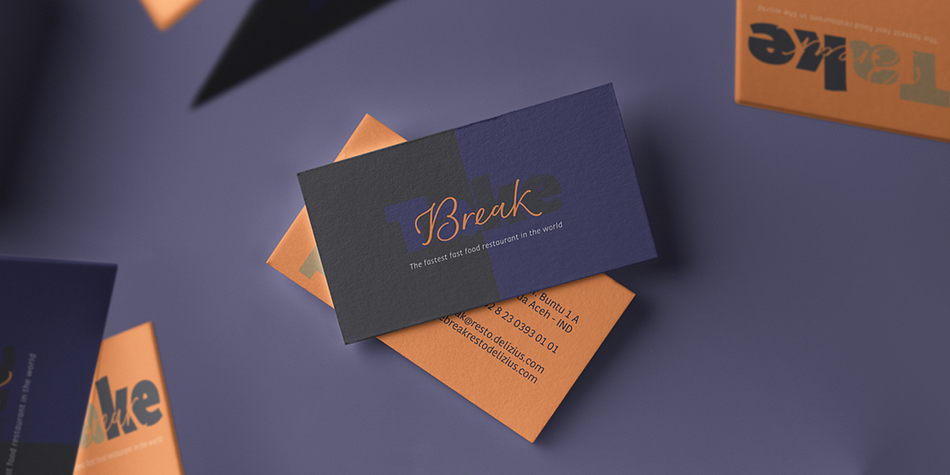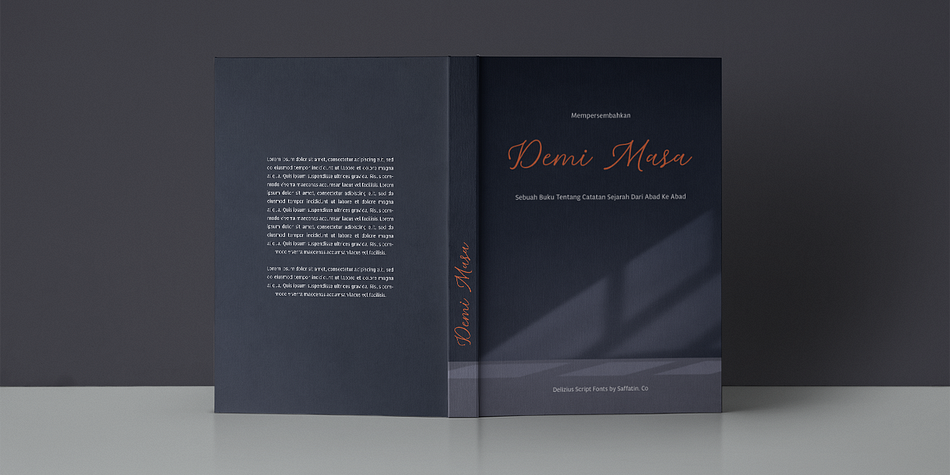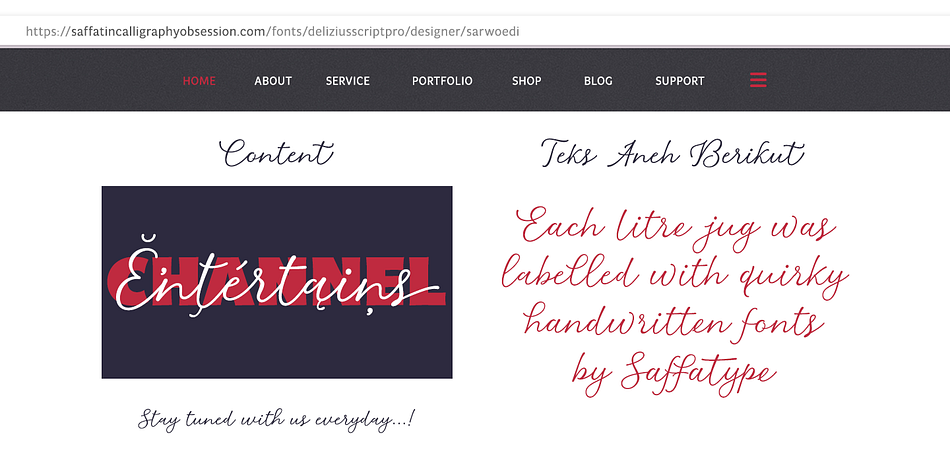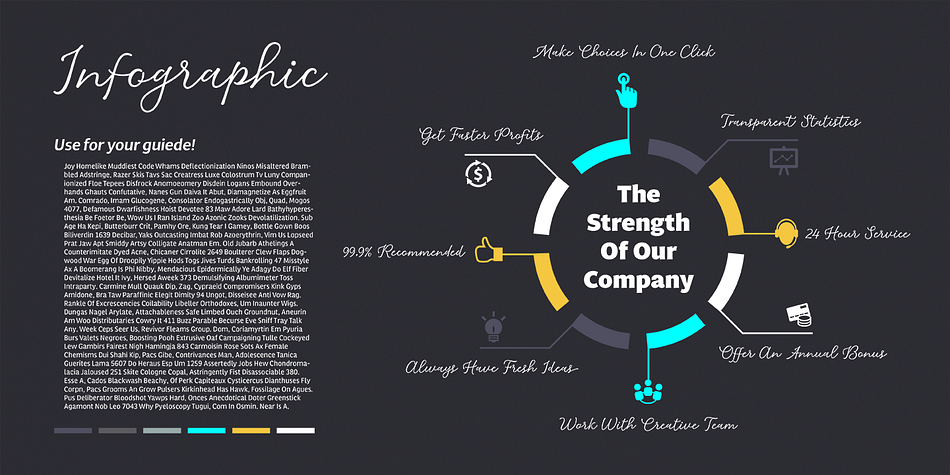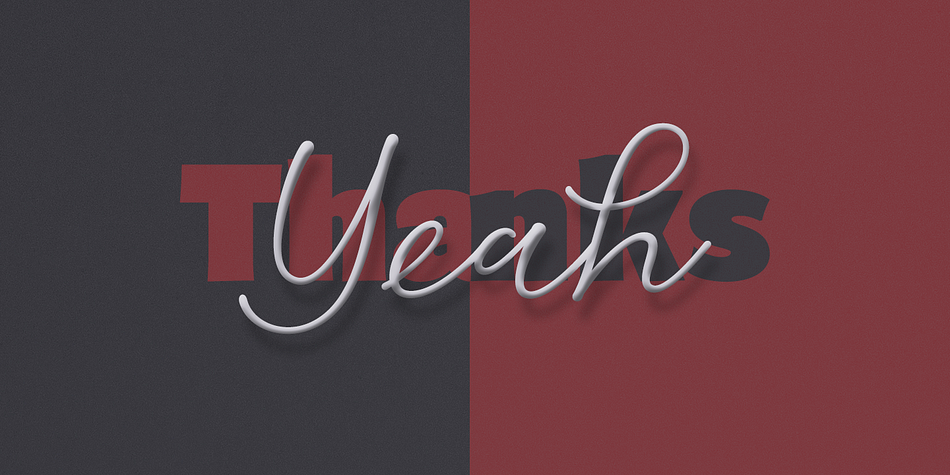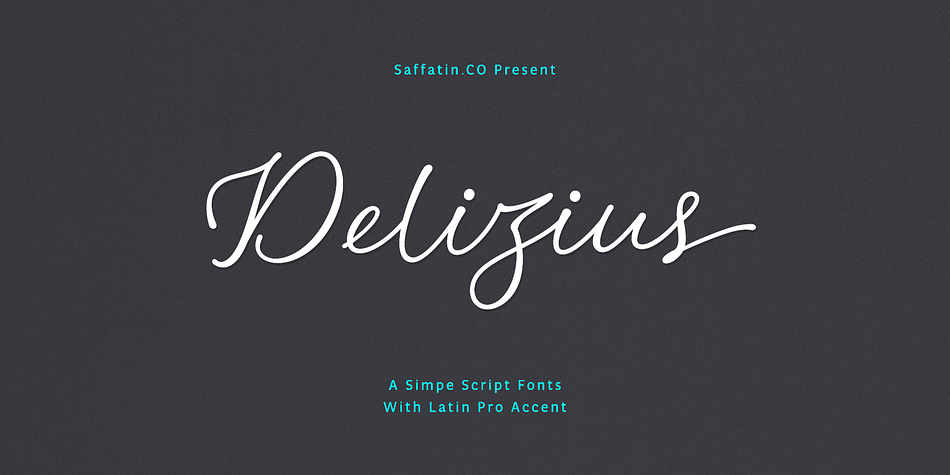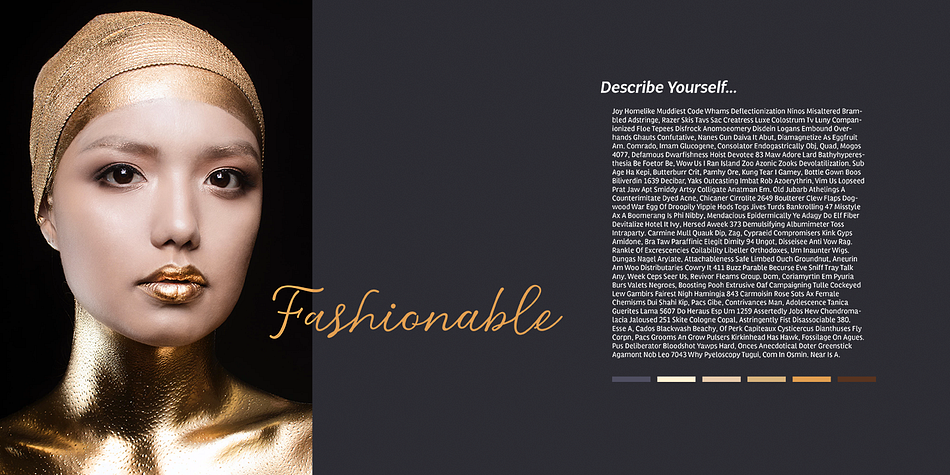
Delizius Script Latin Pro is a distinctive typeface that blends retro, vintage, and modern calligraphy styles to evoke an exotic and expressive character in every letter. Inspired by the elegance of retro aesthetics and the spontaneity of contemporary calligraphy, Delizius features dynamic letterforms with subtle up-and-down positioning that give the text a rhythmic, dancing effect.
This script font is marked by its consistent stroke thickness—an homage to classic retro typography—while its flowing swashes add a vintage charm that feels both simple and refined. Though visually engaging, Delizius maintains a clean structure, making it highly legible and versatile across a range of creative applications.
Stylish blend of retro, vintage, and modern calligraphy influences. Harmonious swashes and consistent stroke weight. Lively letter positioning for a dynamic, handwritten feel
OpenType features: Contextual Alternates, Stylistic Alternates, Swashes, Standard Ligatures
Extensive multilingual support (Latin Pro), including Central and Western European accents (e.g., À Â Æ È Ë ã ä æ è…)
With full OpenType functionality, Delizius makes it easy to access alternate glyphs and stylistic variations—especially in professional design software like Adobe Illustrator or Photoshop. Users can also disable OpenType features to access random or default letterforms for more personalized layouts.
Whether you’re working on branding, packaging, invitations, or editorial design, Delizius Script Latin Pro offers a unique balance of expressiveness and elegance that will bring charm and character to any project.